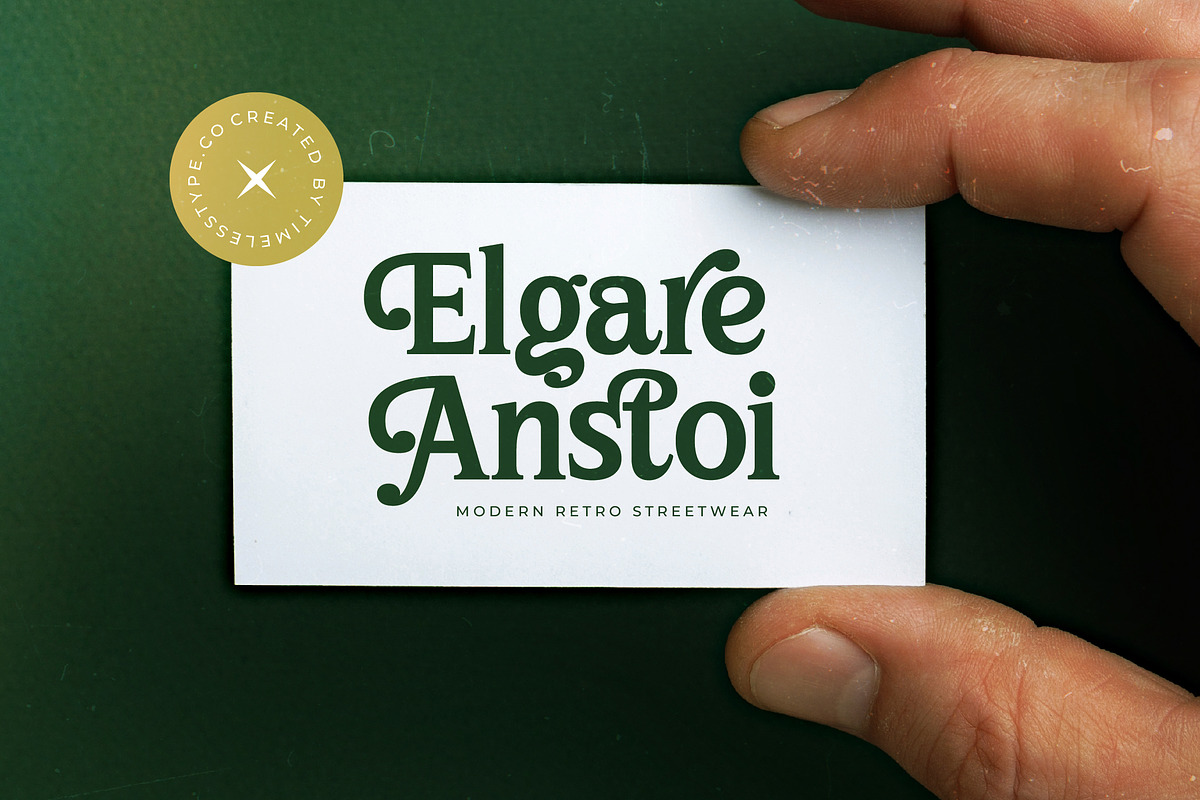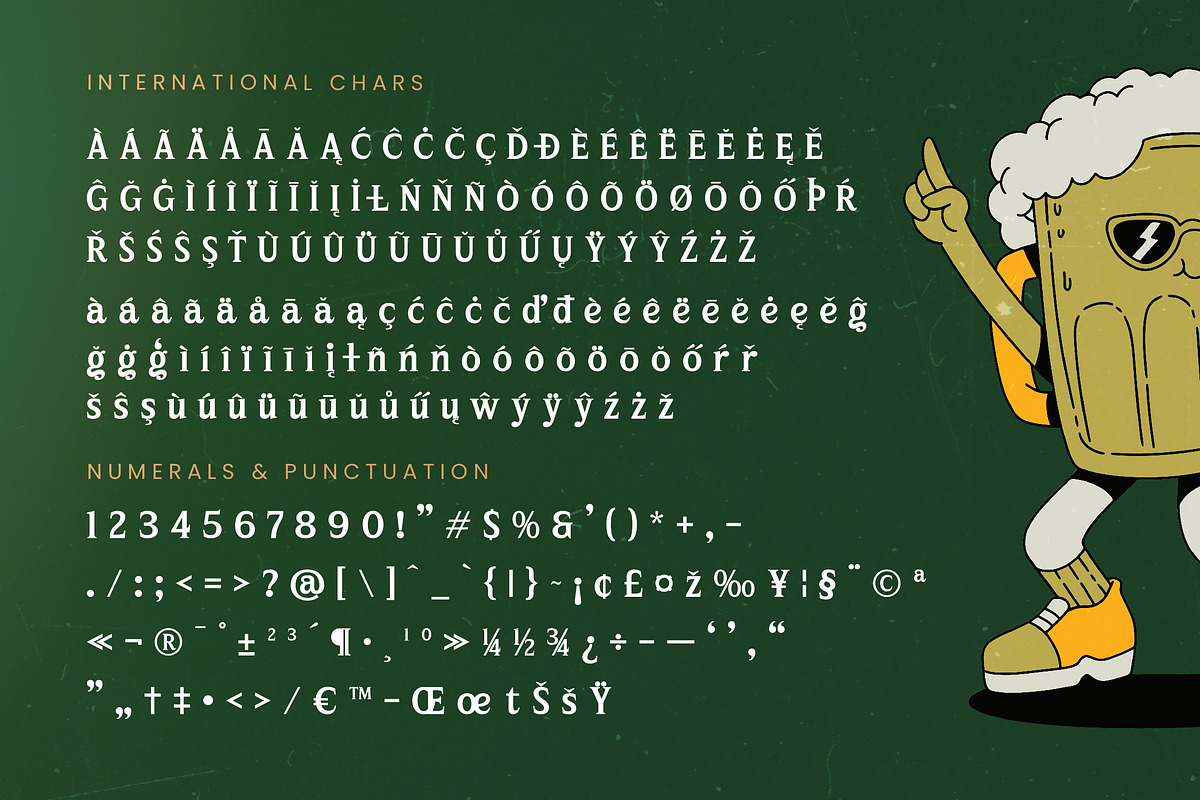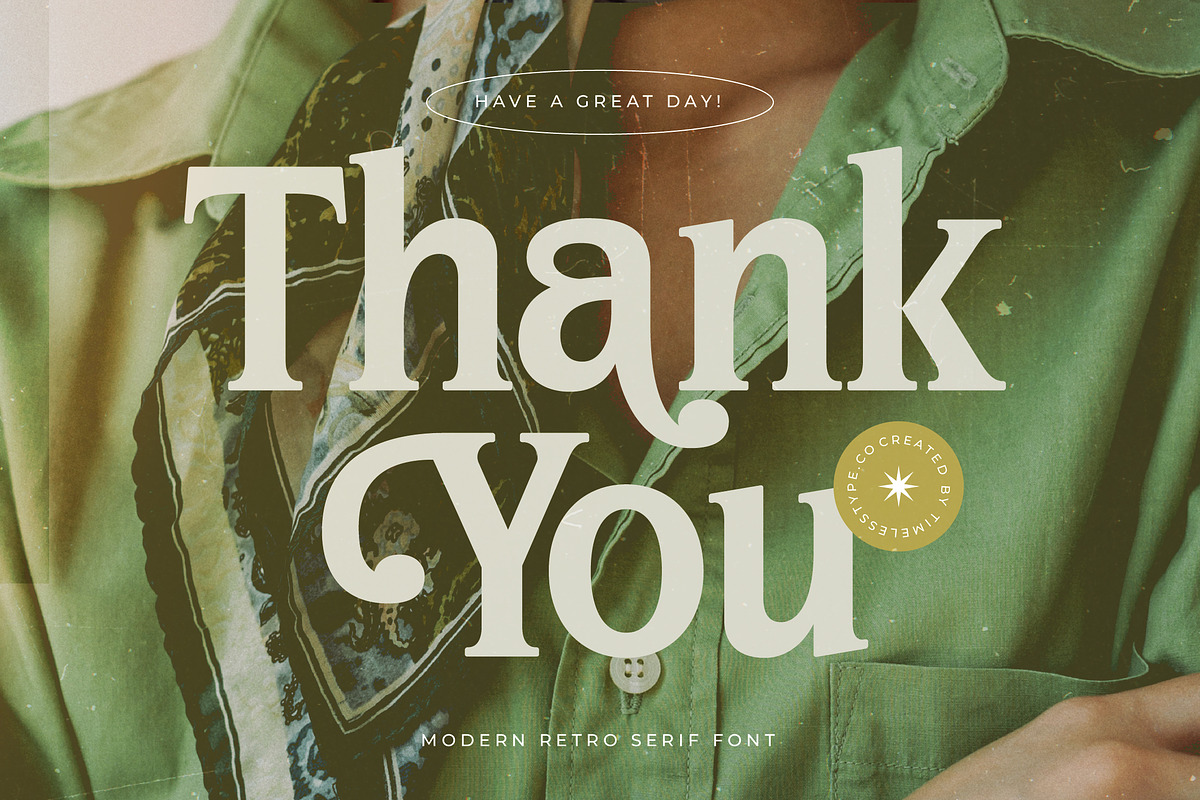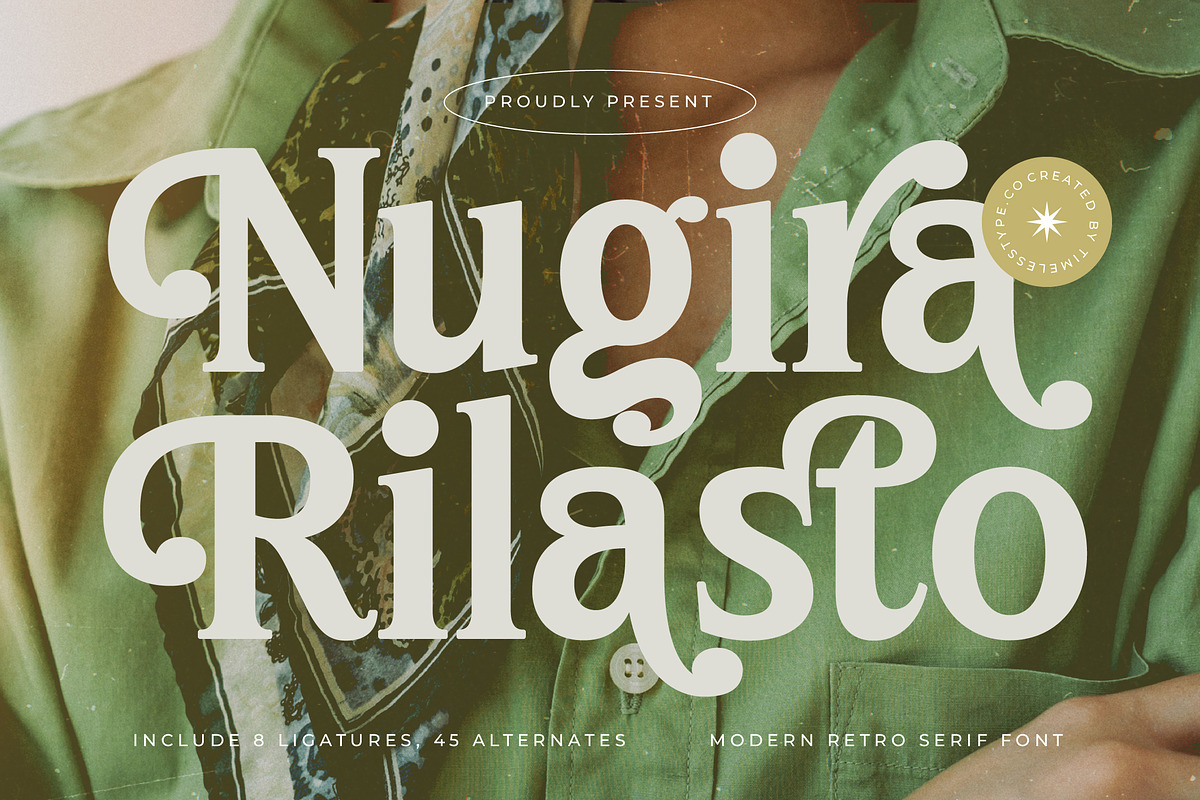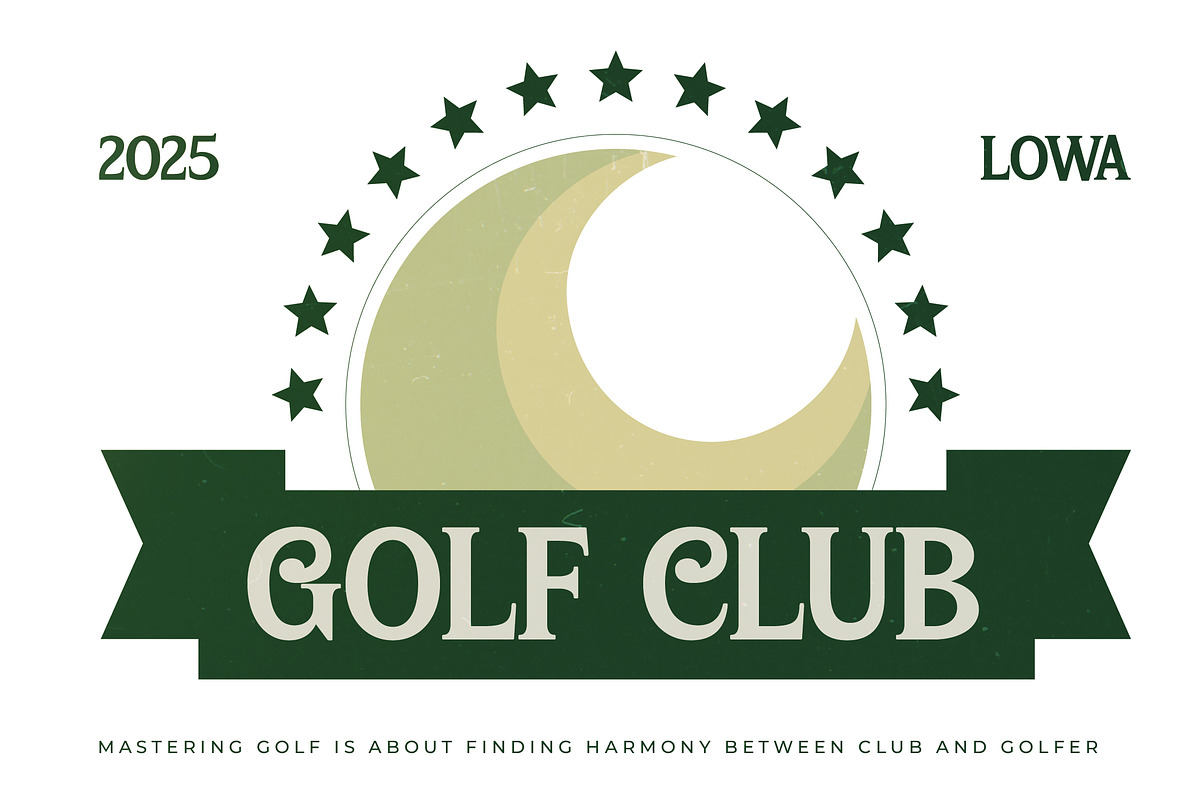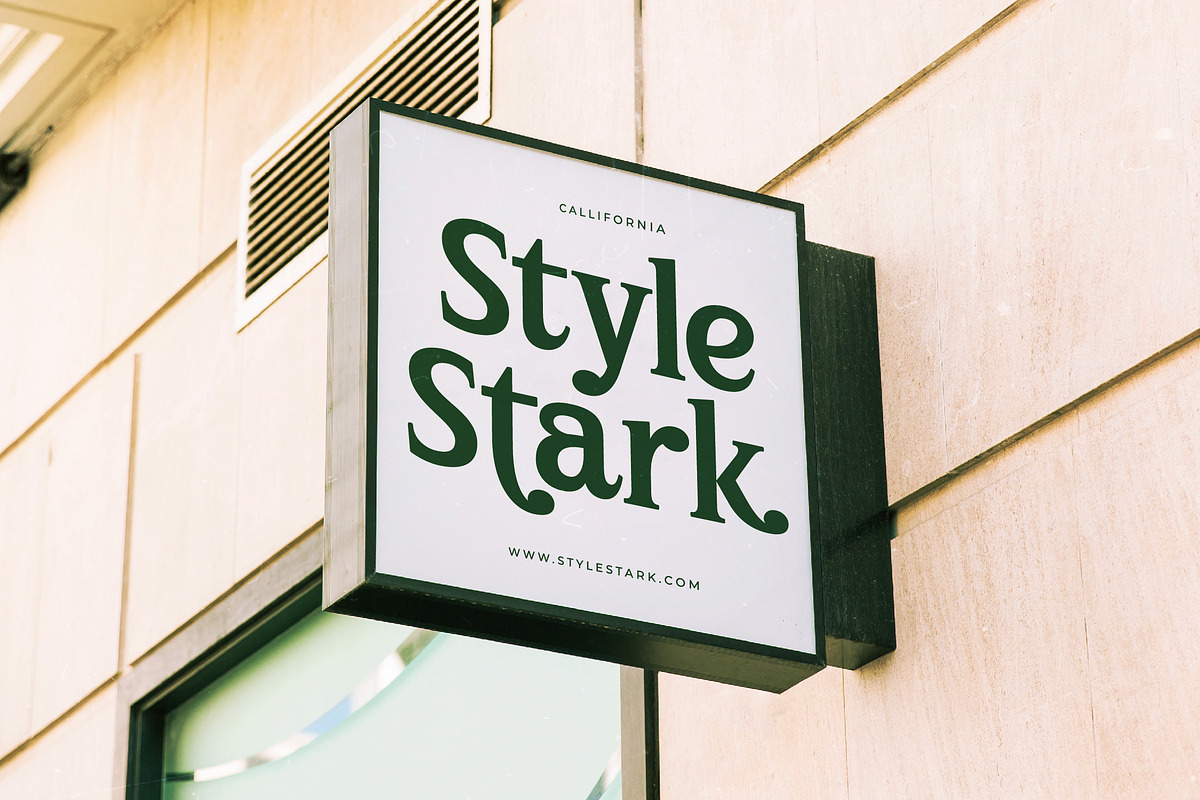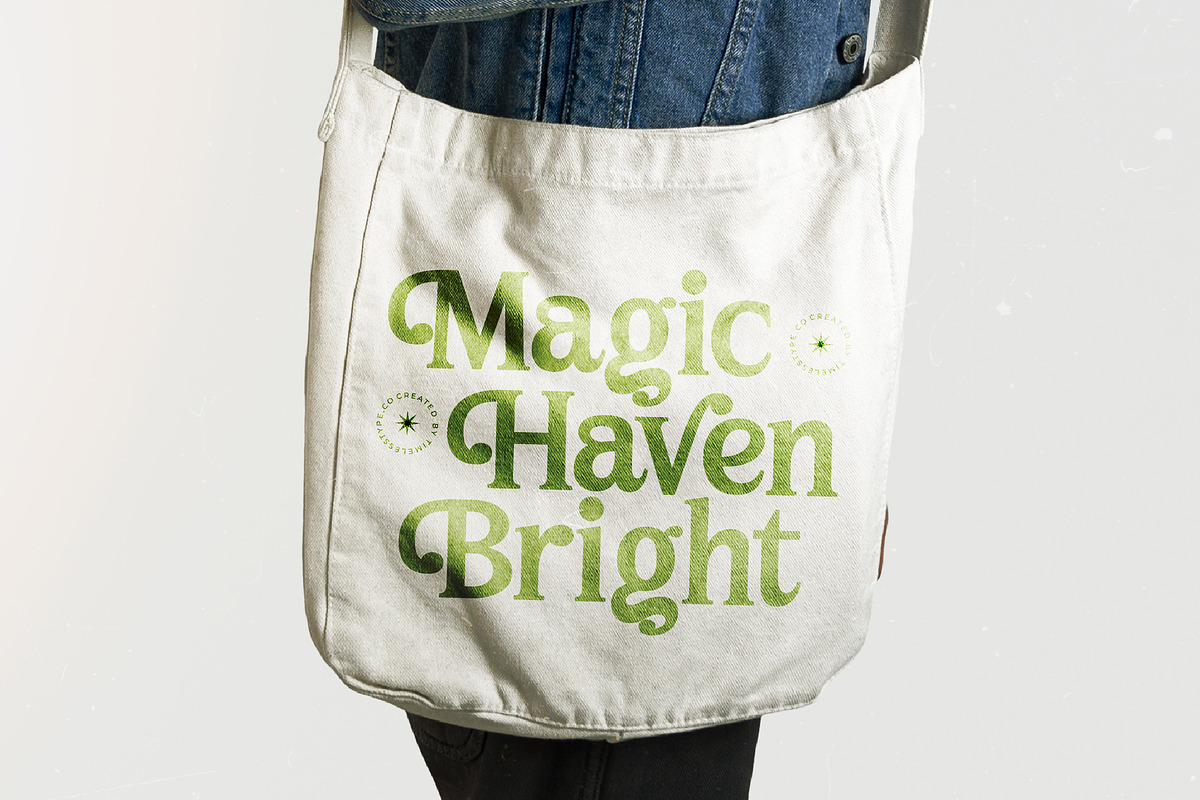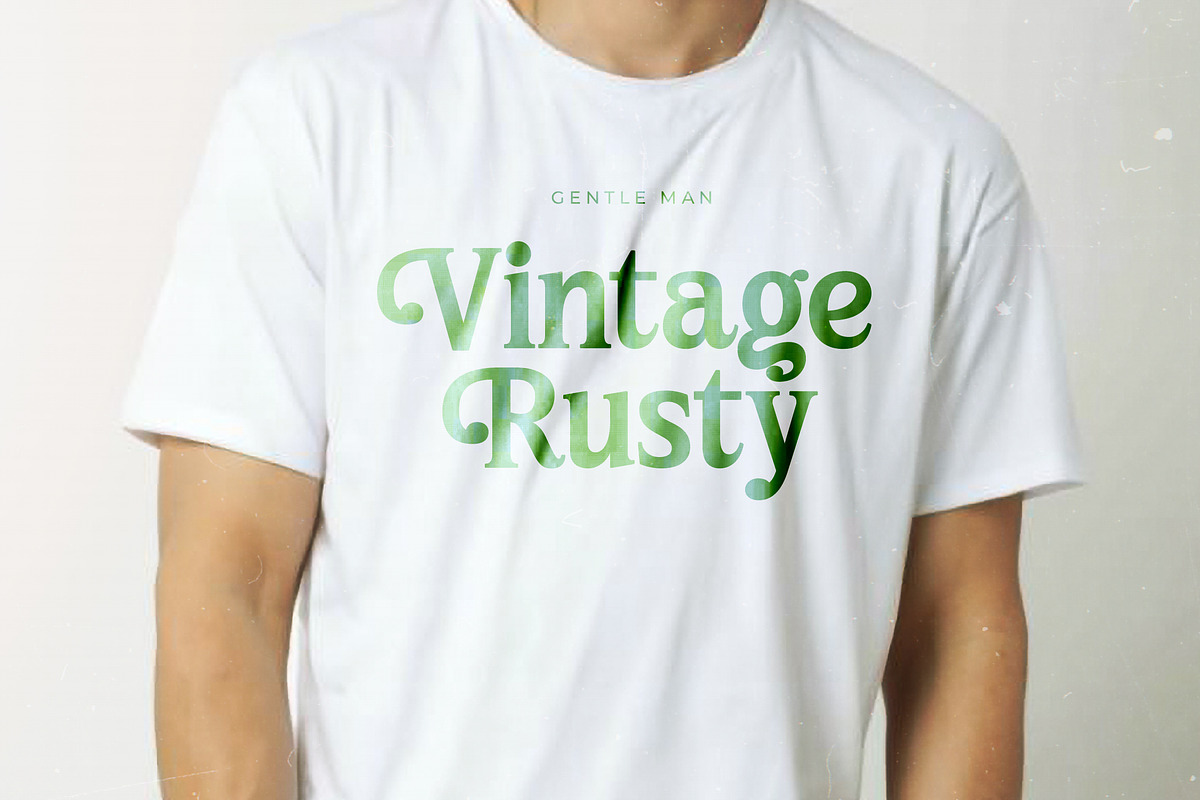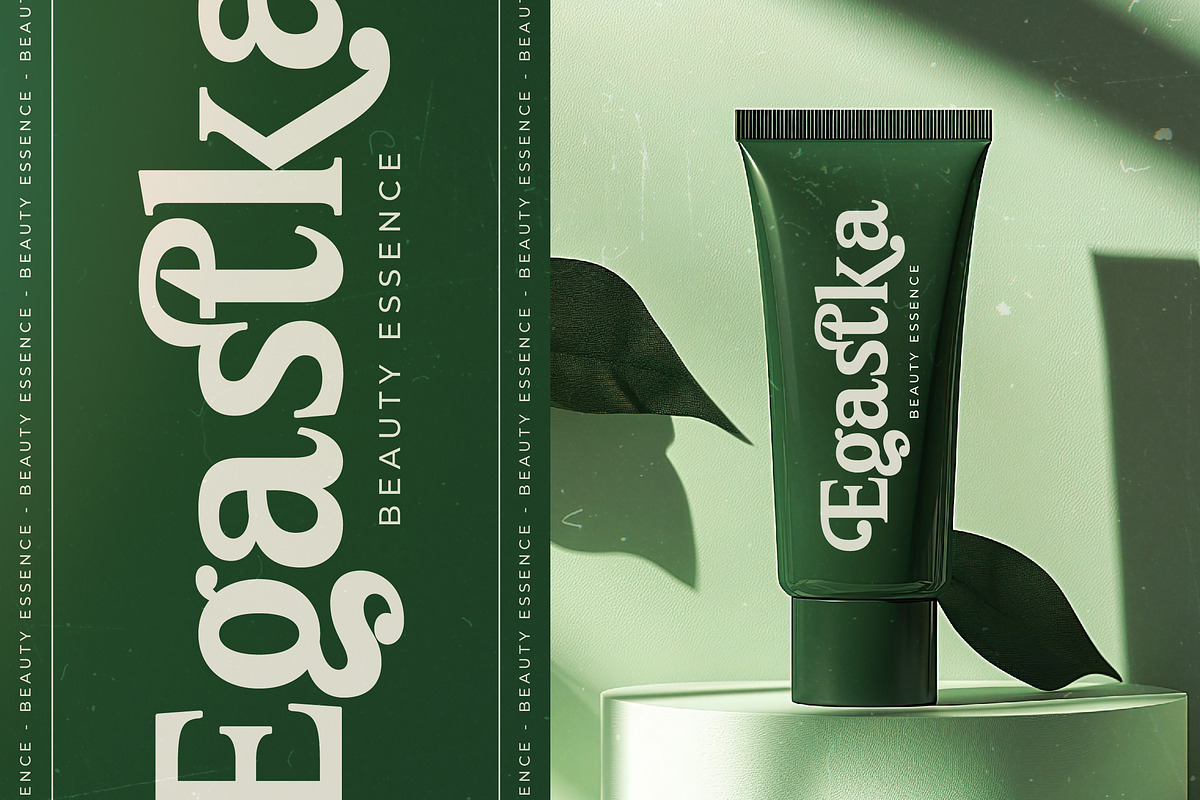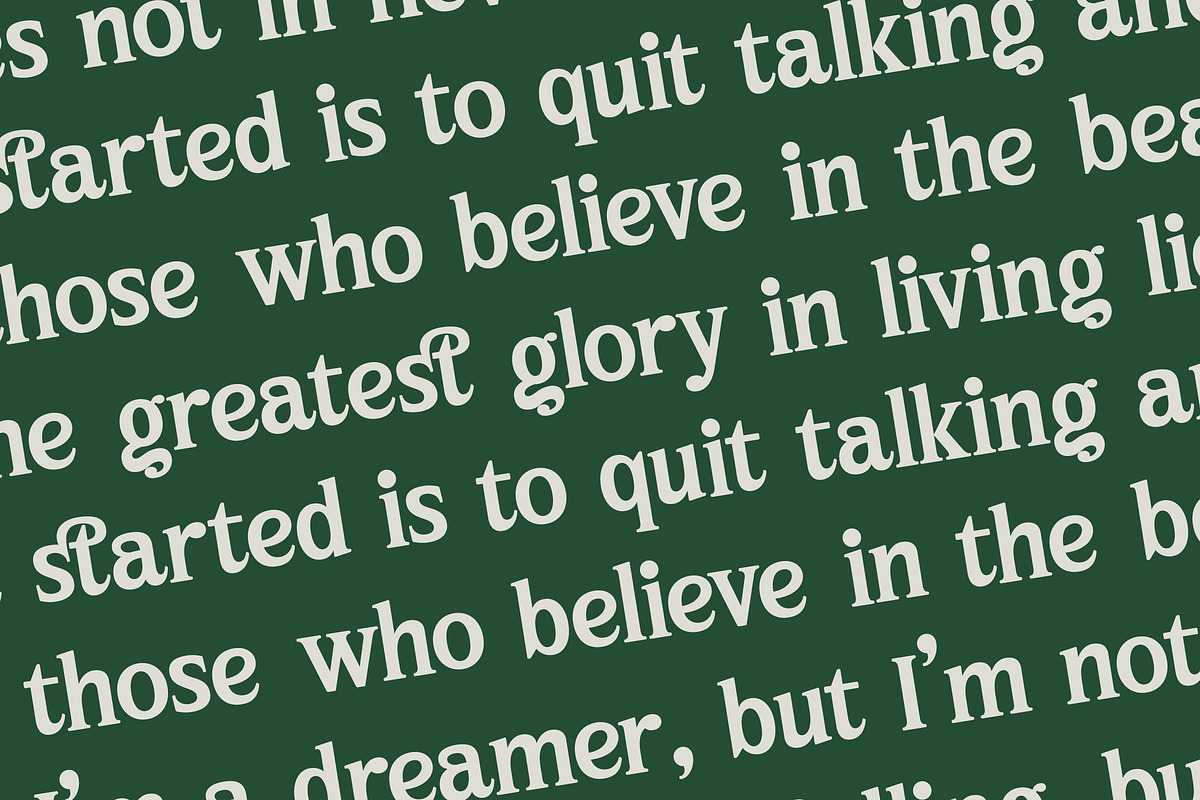
Nugira Rilasto Modern Retro Serif
Nugira Rilasto is a masterclass in blending nostalgia with contemporary flair, offering a visual journey that captures the soul of retro elegance. This typeface creates an immediate connection through its fluid curves and sophisticated presence, making every word feel like a curated piece of art.
Drawing inspiration from the vibrant energy of 70s editorial design and the refined aesthetic of modern high-fashion, the font evokes a sense of timeless charm. Its balance of thick and thin strokes reflects a world where vintage character meets the clean lines of the digital age, perfect for story-driven projects.
This modern serif display exudes a sense of luxury typography that commands attention while maintaining an approachable warmth. The high-contrast serif design ensures a powerful branding impact, making it an essential editorial font for designers who need to balance bold personality with professional grace.
As the modern serif trend continues to dominate the creative landscape, this typeface stands out by offering a unique blend of character-driven typography. It perfectly aligns with the demand for editorial display fonts that feel both custom-made and highly versatile for today's visual-first markets.
Whether you are crafting a standout logo design or developing a cohesive branding identity, this font delivers exceptional results across editorial layouts and luxury packaging. It is equally at home in high-end wedding invitations or cutting-edge fashion lookbooks where style is paramount.
To provide maximum creative freedom, the set includes a rich collection of 8 ligatures, 45 alternates, and decorative swashes that allow for unique letter combinations. Full support for multilingual workflows and a comprehensive set of international characters ensure your message resonates globally without limitations.
- Ligature 8 Alternate 45